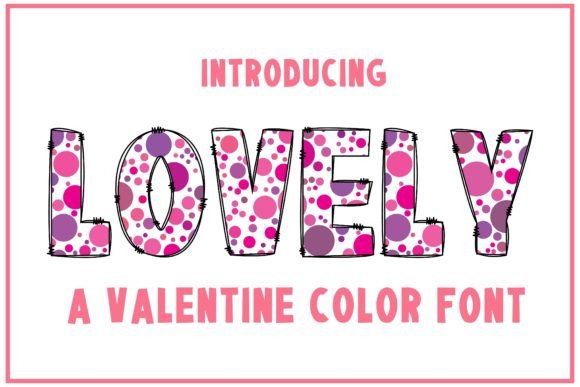
Introducing Lovely Font, the best font for PNGs, created by Color Studio. If you are looking to add a romantic and sweet touch to your next design, Lovely Font is the perfect choice. This colorful font family is sure to capture the hearts of your audience and elevate your designs to the next level.
Whether you're working on Valentine's Day crafts, creating a wedding invitation, or simply looking to add a charming touch to your design, Lovely Font is the versatile typeface you've been searching for. This font is not just aesthetically pleasing, but it's also packed with emotion and is sure to evoke feelings of warmth, love, and tenderness.
With Lovely Font, you'll be able to create eye-catching designs that are guaranteed to stand out from the rest. The font's romantic and sweet nature makes it the perfect choice for adding a touch of elegance to any design. The Lovely Font is not just a font; it's a way to make your design shine.
This Best Font For Png has the potential to capture the essence of any design and add a heartfelt and charming touch to it. It's no wonder why Lovely Font is the go-to font for designers looking to create designs that are both beautiful and emotive.
In summary, if you're looking for a colorful and versatile font family that will elevate your designs and capture the hearts of your audience, look no further than Lovely Font. Created by Color Studio, this romantic and sweet typeface is sure to become a staple in your design arsenal.